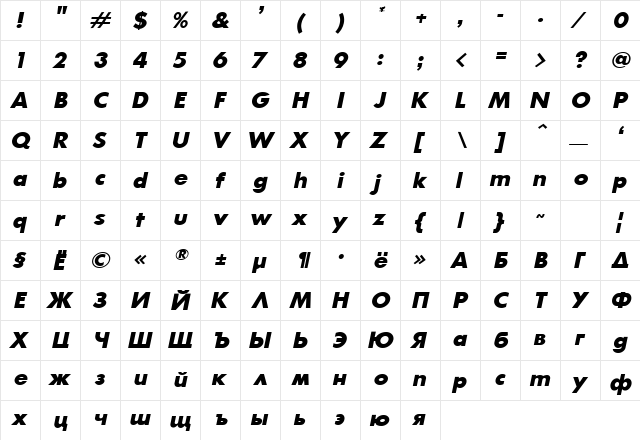
Fortuna Bold Oblique
Design Context for Fortuna Typeface
Fortuna is a composed and adaptable typeface that performs quietly and consistently across a wide range of design contexts. Its italic angle brings a sense of urgency and motion to the letterforms. Its bold stroke weight gives it real presence on the page.
Pro Tip: Use Fortuna for emphasis, pull quotes, and subheadings where its slanted energy can add rhythm to the layout.